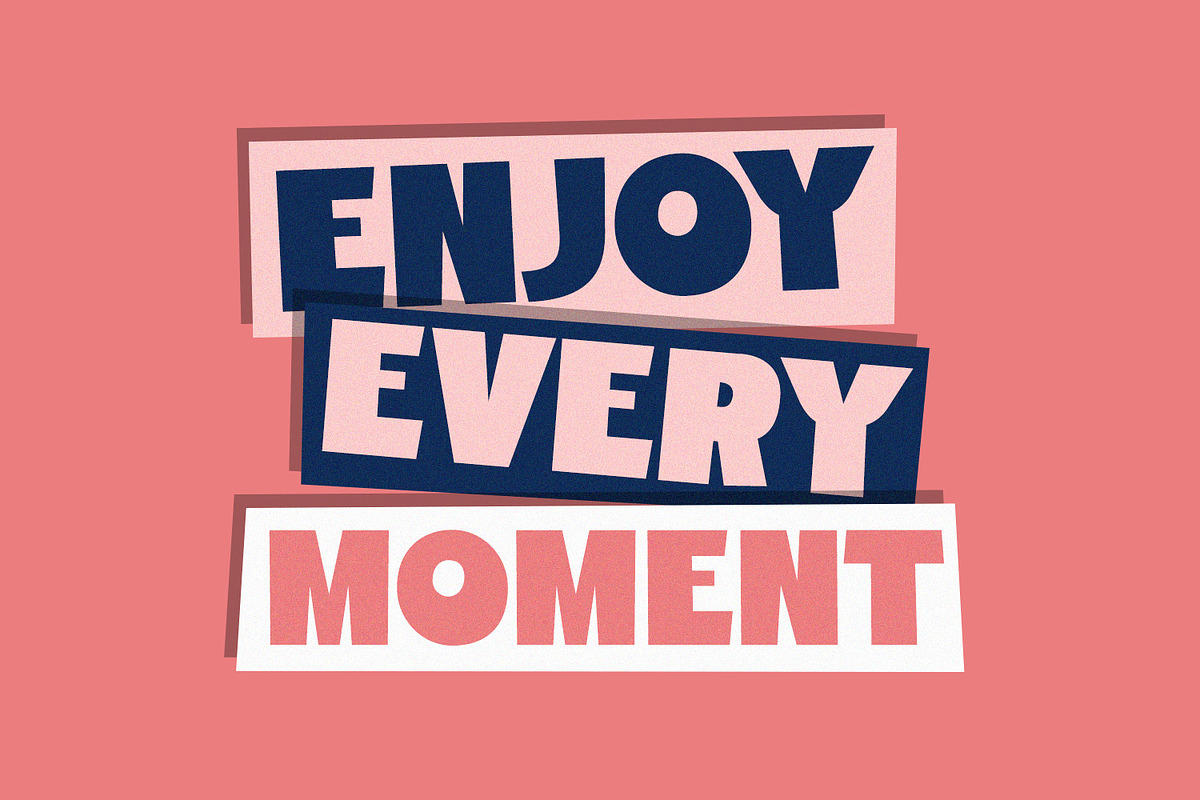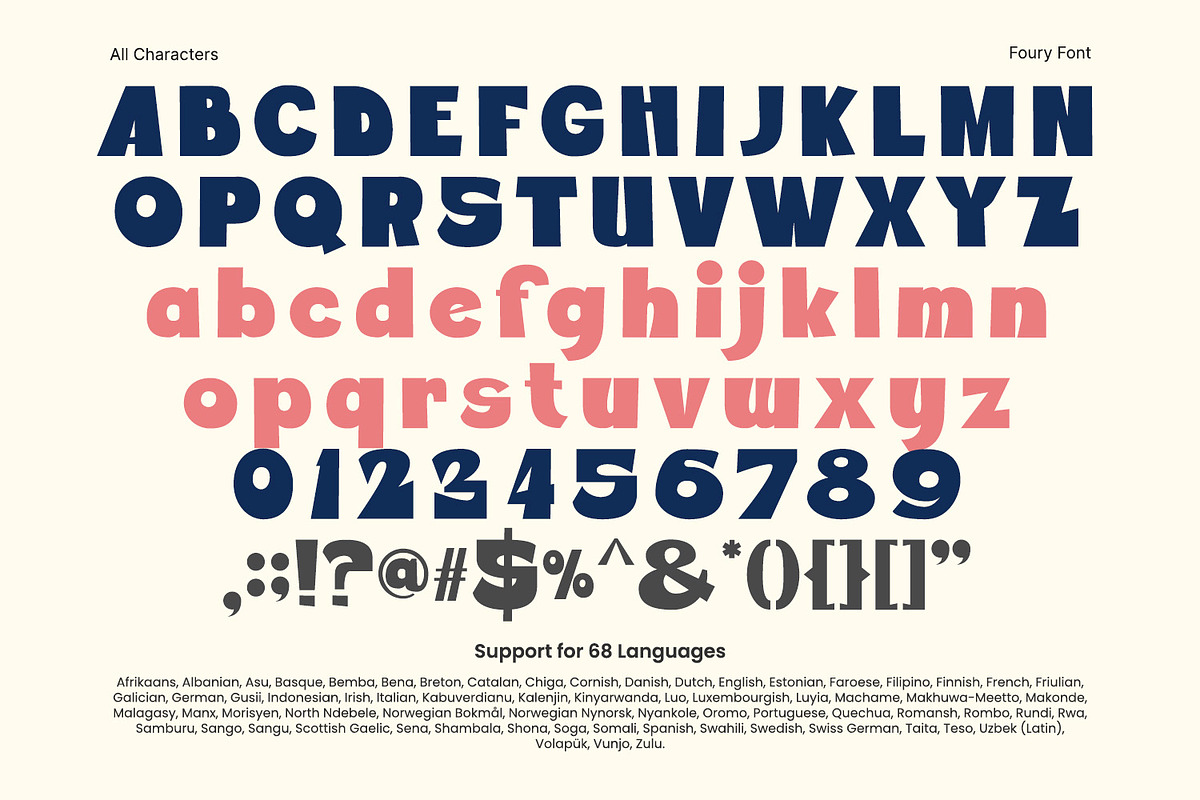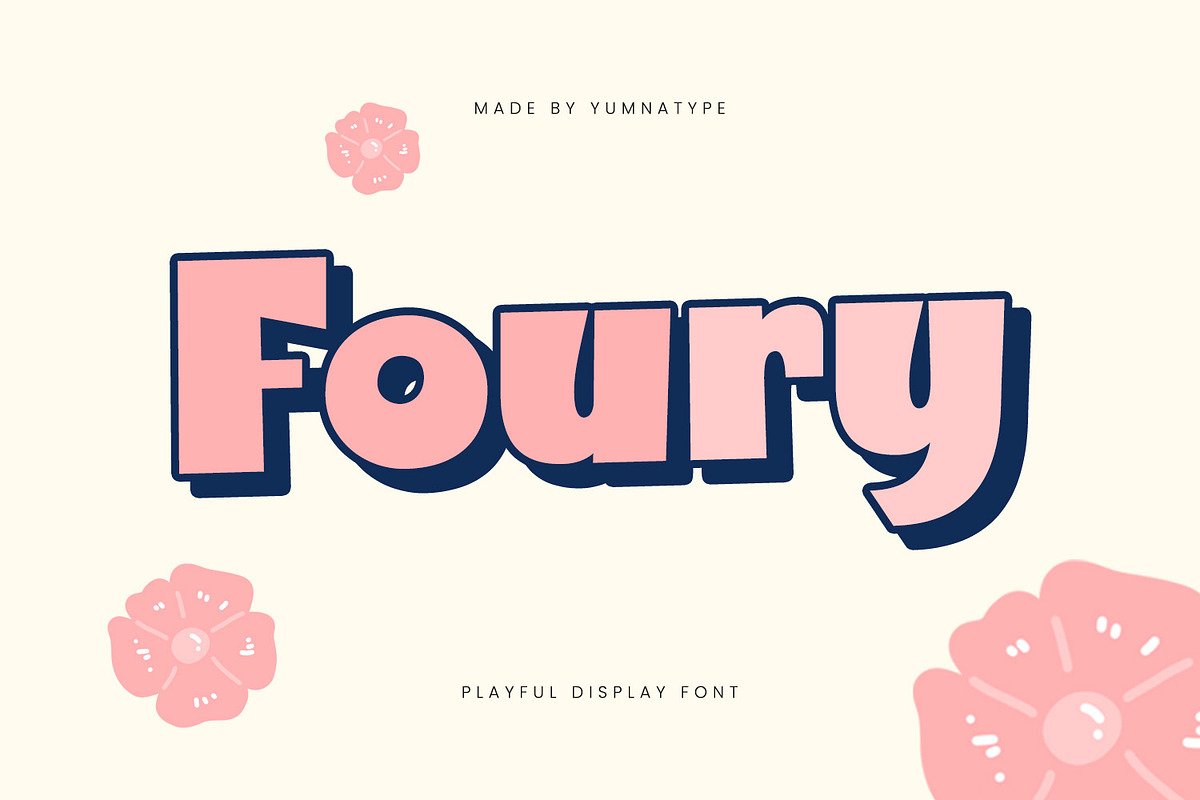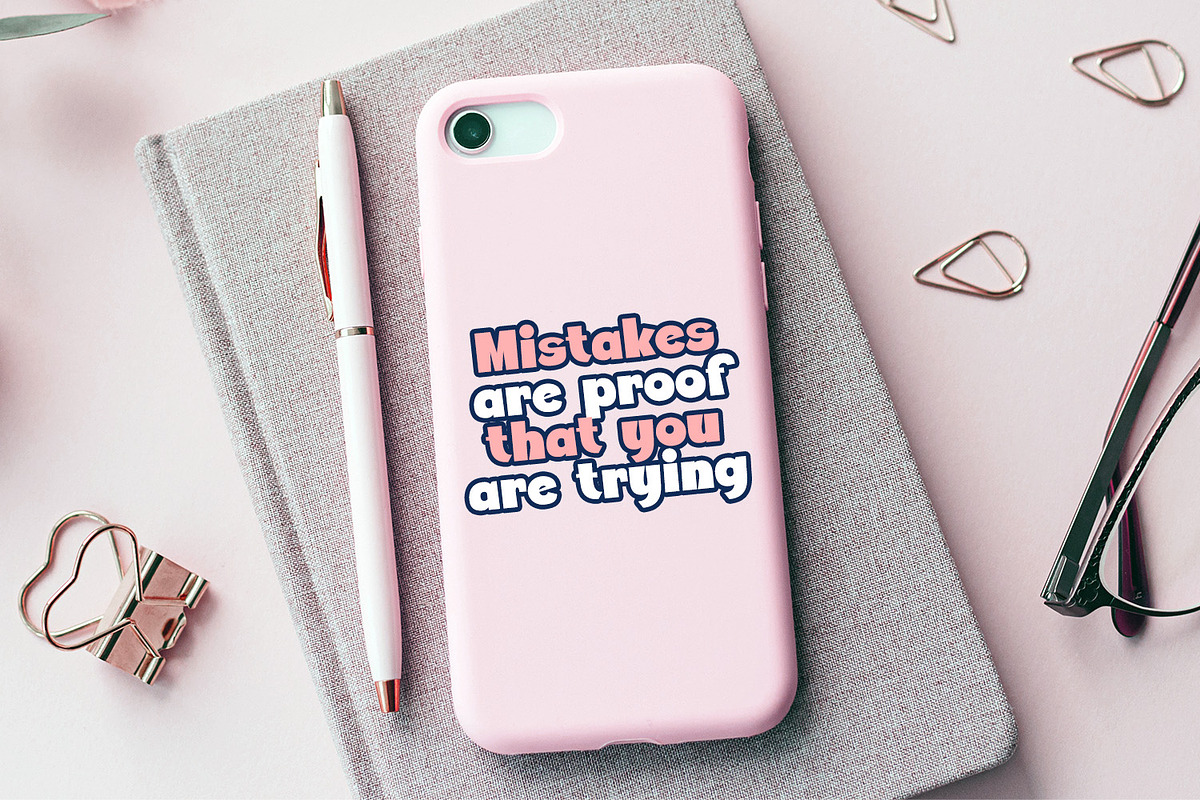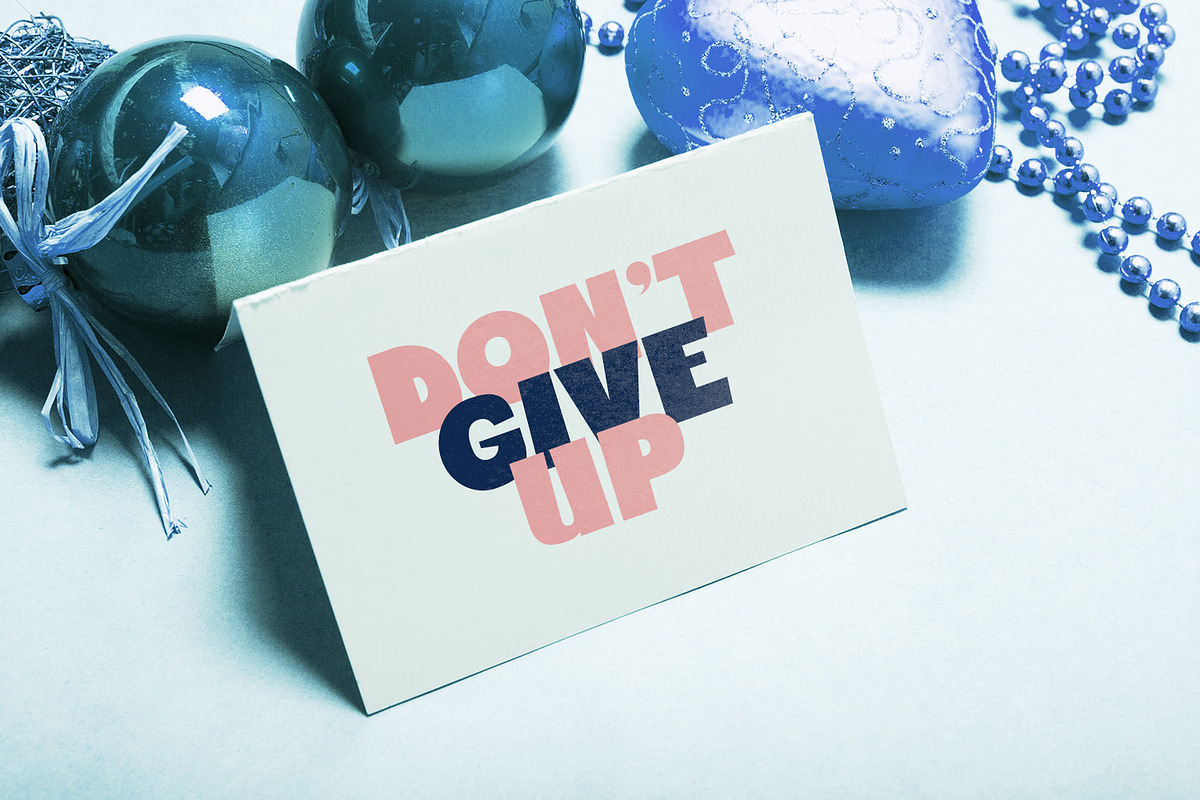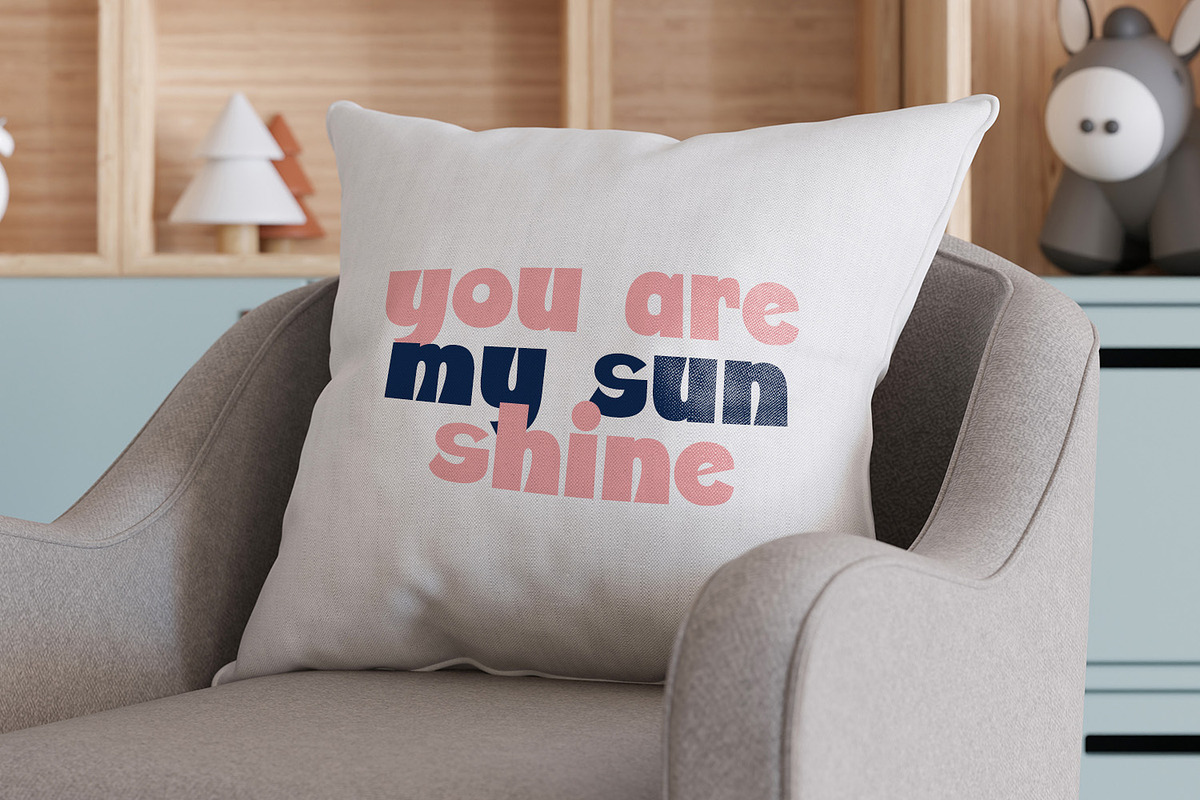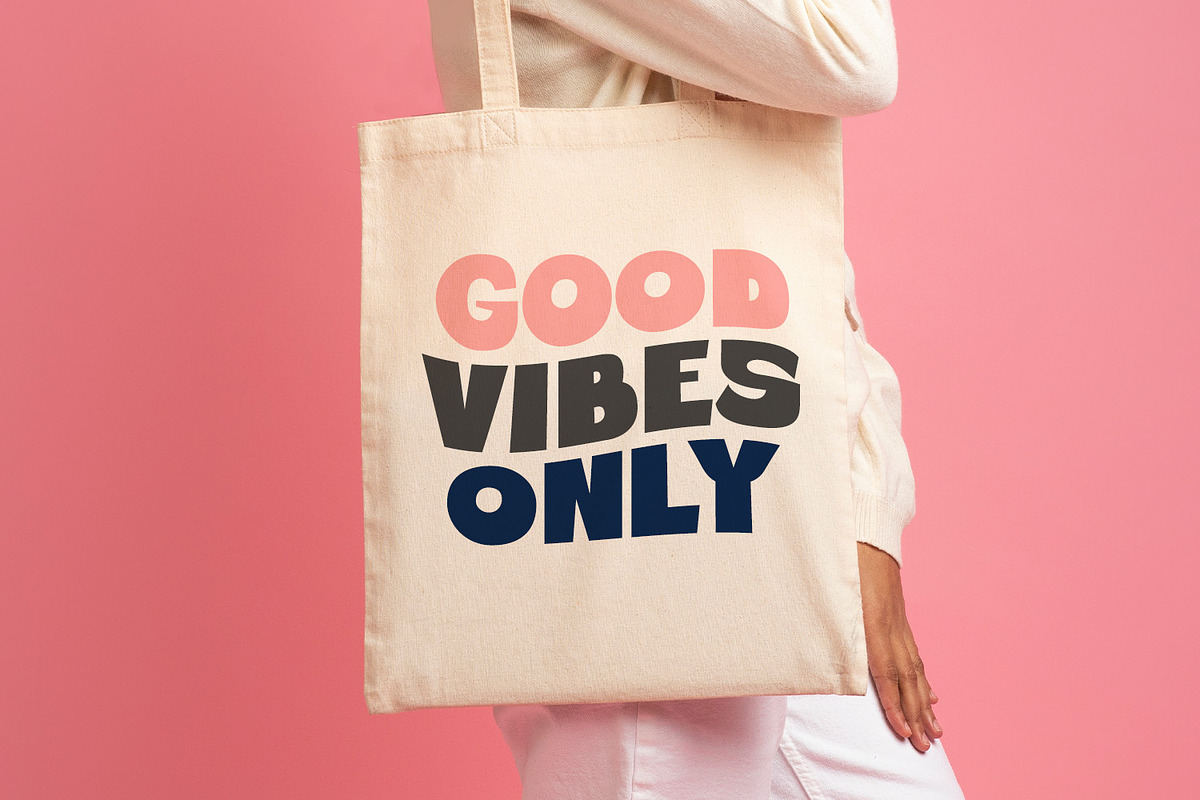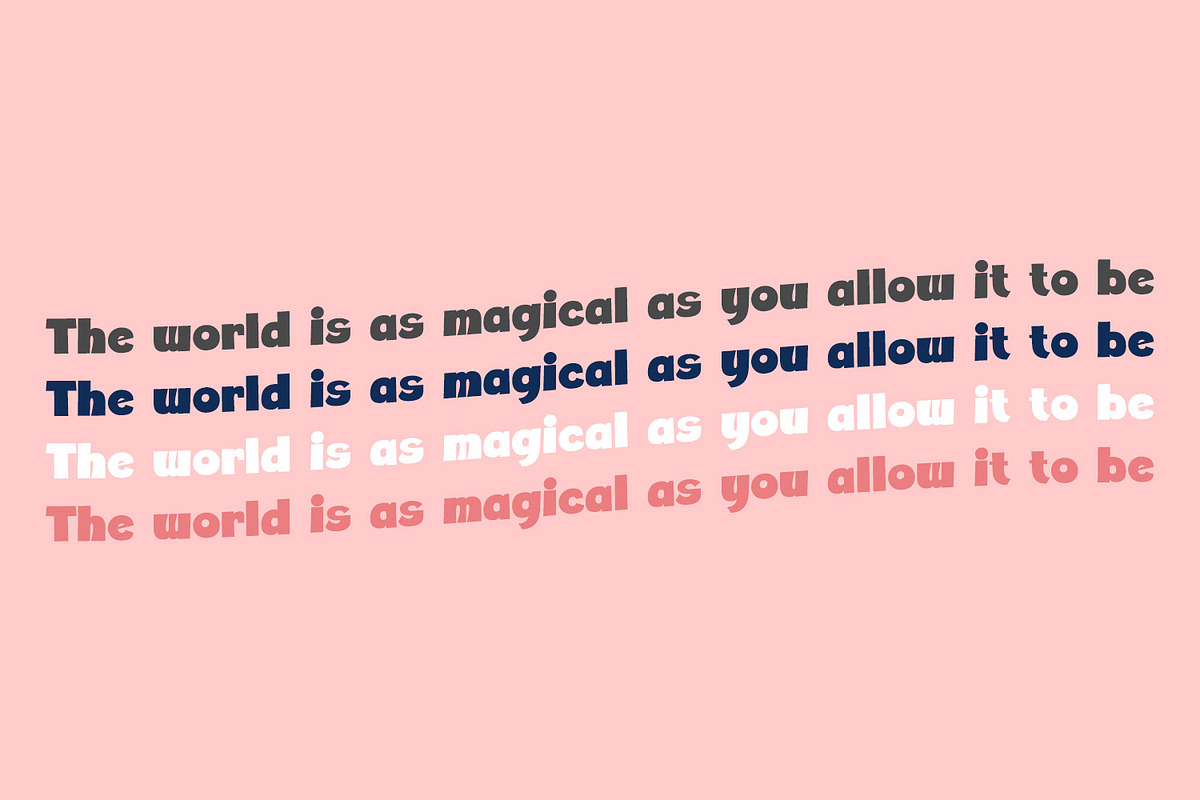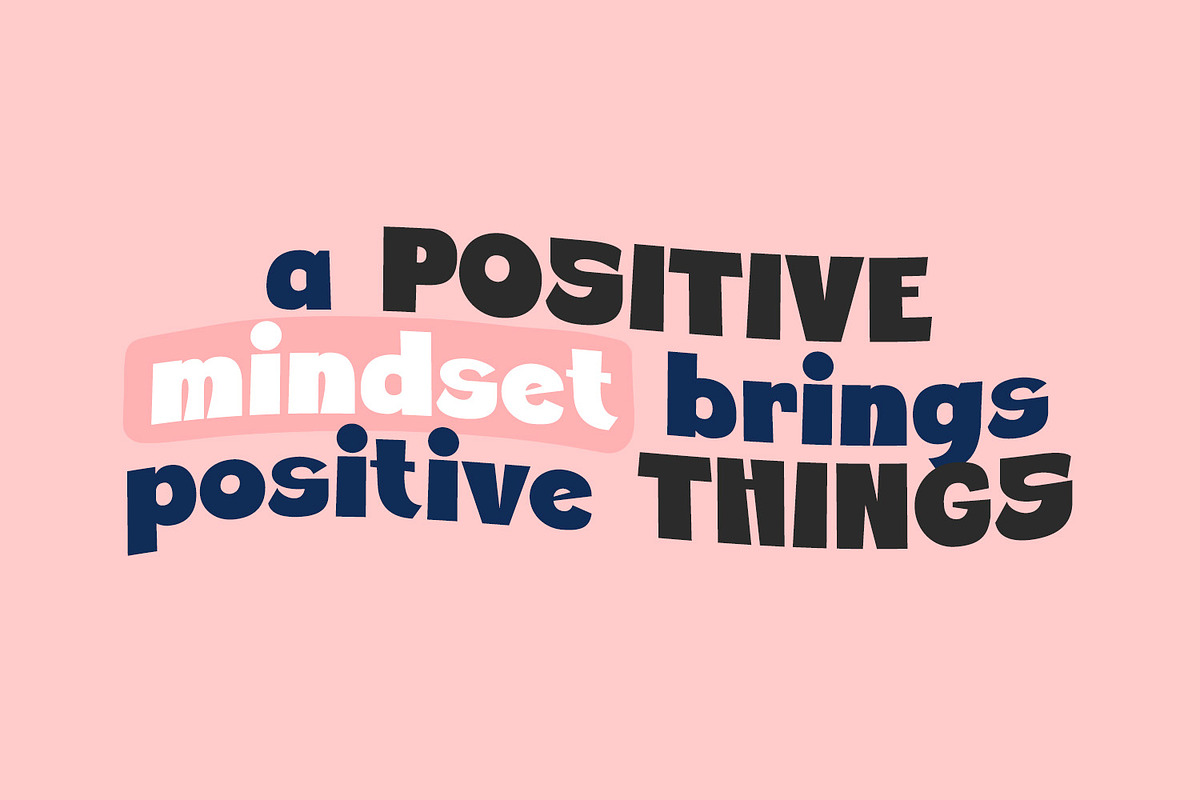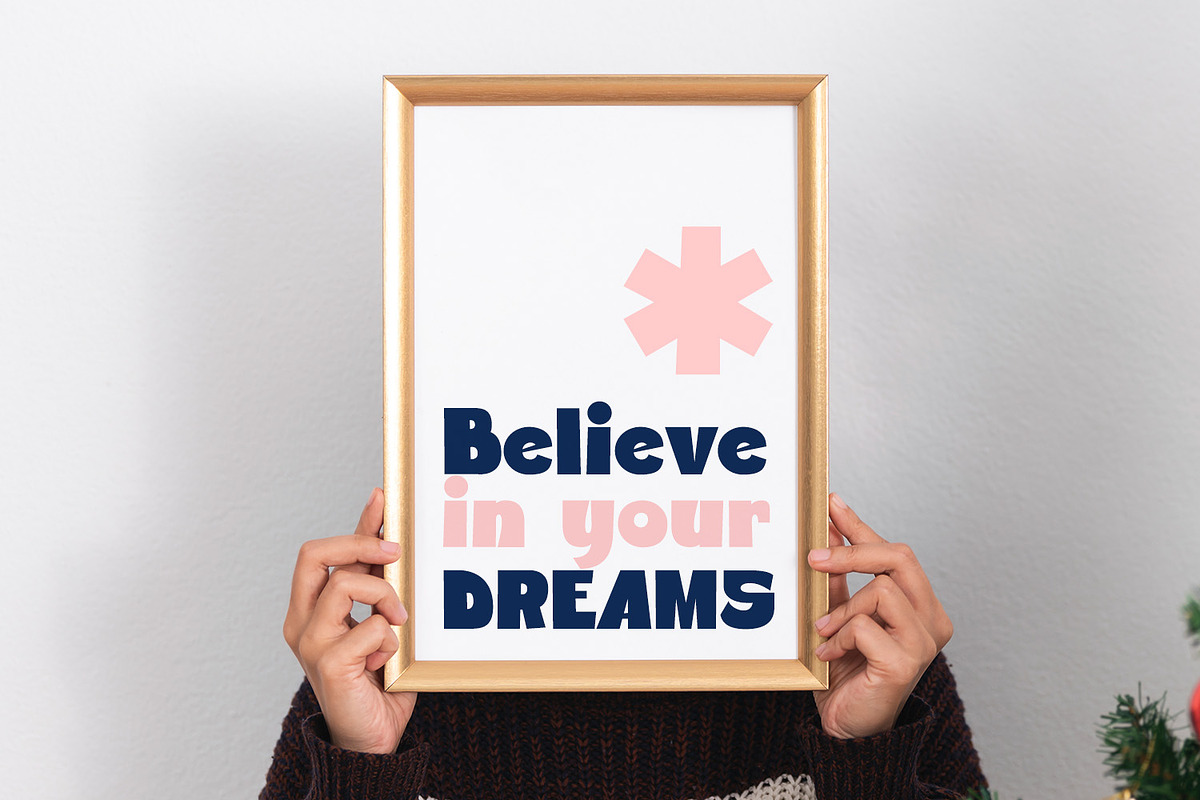
Foury
Foury is a striking display font designed with a very thick weight and sturdy shape, making it a powerful choice for commanding attention. Its low contrast adds to its bold presence, creating a robust appearance. Foury brings a sense of strength and reliability to your designs. With its solid and confident character, Foury is perfect for making bold statements and ensuring your message stands out. In addition, enjoy the features here.
Foury fits in headlines, logos, posters, flyers, branding materials, print media, editorial layouts, and many more designs. Find out more ways to use this font by taking a look at the font preview.